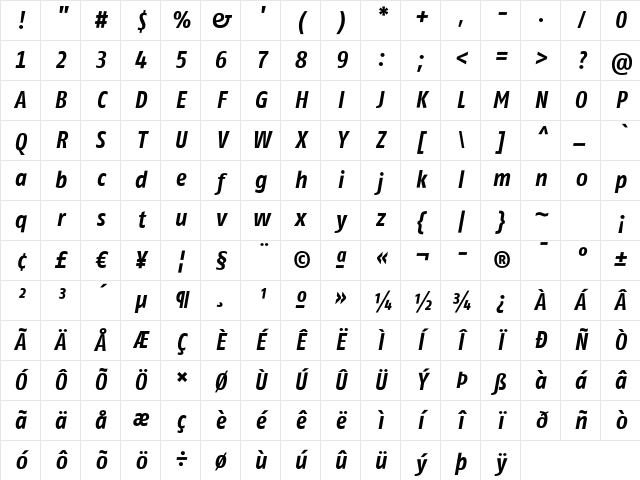
Complete FagoCoTf-BoldItalic Bold Italic glyph index. Displaying only characters natively supported by FagoCoTf-BoldItalic Bold Italic font.
FagoCoTf-BoldItalic is a composed and adaptable typeface that performs quietly and consistently across a wide range of design contexts. The slanted form adds forward momentum and visual energy. Its bold stroke weight gives it real presence on the page.
Pro Tip: Use FagoCoTf-BoldItalic for emphasis, pull quotes, and subheadings where its slanted energy can add rhythm to the layout.